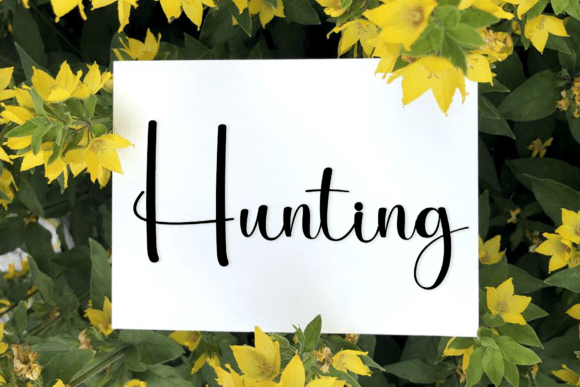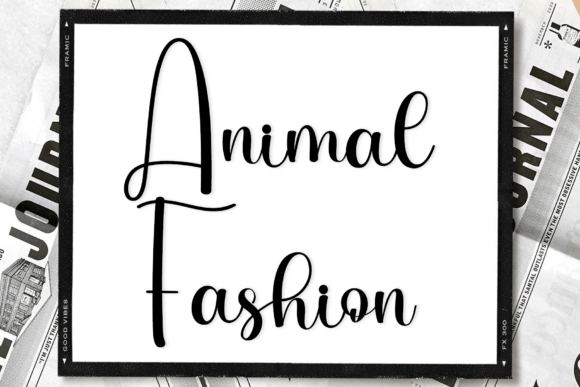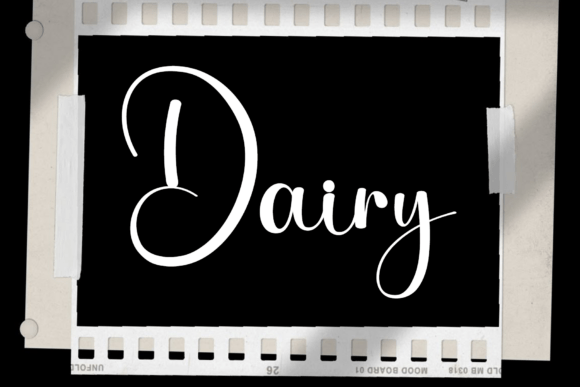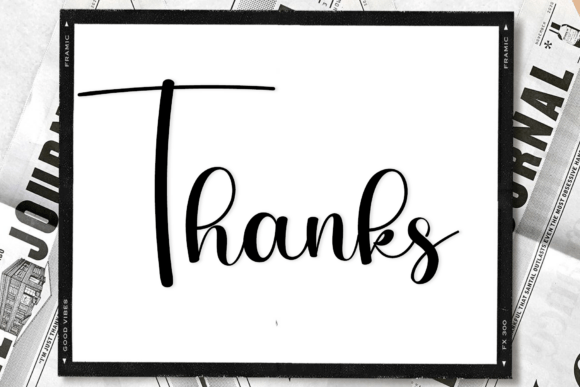
Introducing Behind Font: A Timeless Handwritten Delight
Are you on the hunt for a font that adds a personal touch to your designs? Look no further than Behind Font, a lovely and timeless handwritten font that’s perfect for creating eye-catching logos, branding, and quotes. With its unique and beautiful touch, Behind Font is sure to make your designs come alive!
Handwritten fonts have a way of adding a personal and emotional touch to any design. They evoke feelings of warmth, friendliness, and approachability, making them perfect for brands that want to connect with their audience on a more intimate level. Behind Font is no exception, with its delicate and charming lettering that exudes a sense of sophistication and elegance.
What Makes Behind Font Special?
So, what sets Behind Font apart from other handwritten fonts out there? For starters, every letter has a unique and beautiful touch that gives it a distinctly handcrafted feel. The font’s creator has poured their heart and soul into crafting each letterform, resulting in a font that’s both visually stunning and endearing.
Another standout feature of Behind Font is its versatility. Whether you’re designing a logo, creating a social media graphic, or crafting a quote, this font is up to the task. Its clean and elegant lines make it perfect for use in a variety of contexts, from digital designs to print materials.